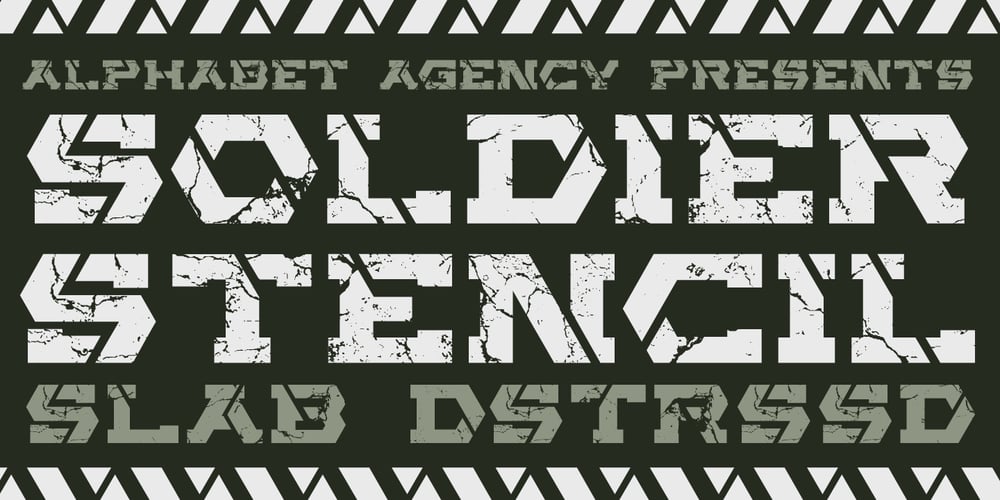
Soldier Slab Stencil Dstrssd Font Family was designed by Swinn Jonathan and published by Alphabet Agency. Soldier Slab Stencil Dstrssd contains 1 styles and family package options. Soldier Slab Stencil Dstrssd. is a grungy military stencil font. The bold slab characters provide a great base to present the distressed effect.The font has been developed from a war related computer game project.The font contains 26 letters of the English alphabet in capitals and alternative capitals are represented when typing in lowercase letters. Each font also contains numbers, punctuation and a range of Latin characters as displayed.